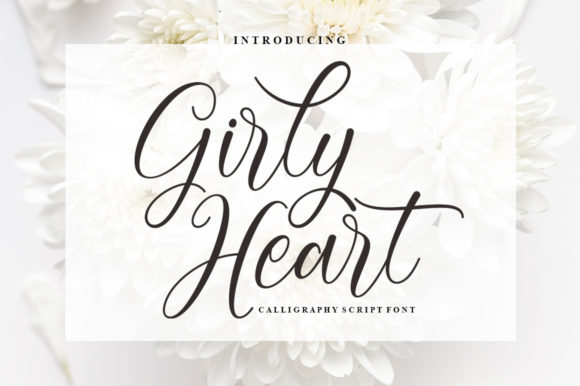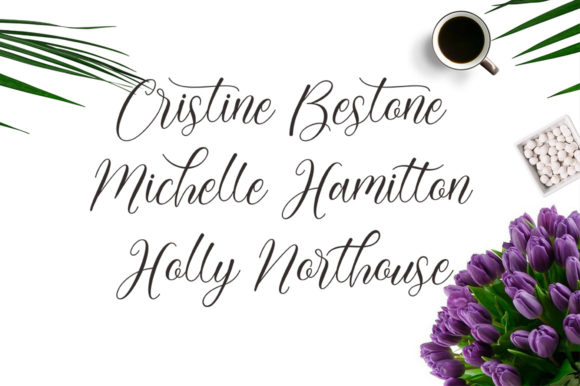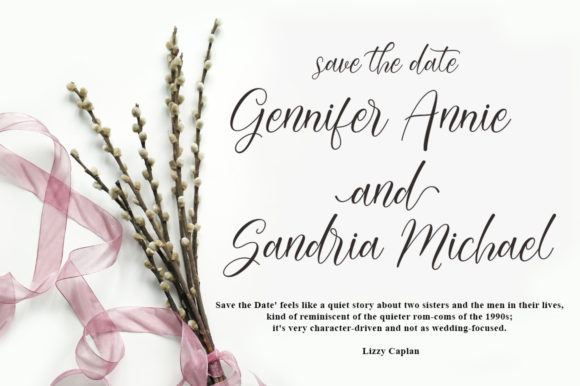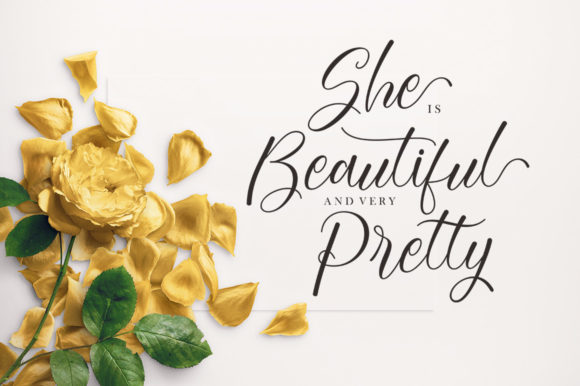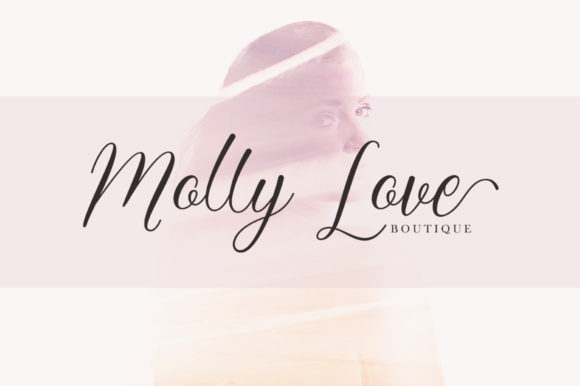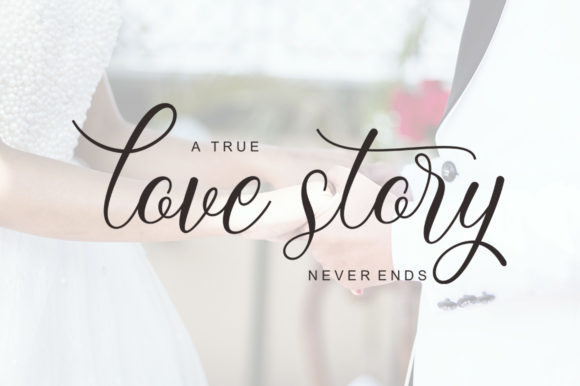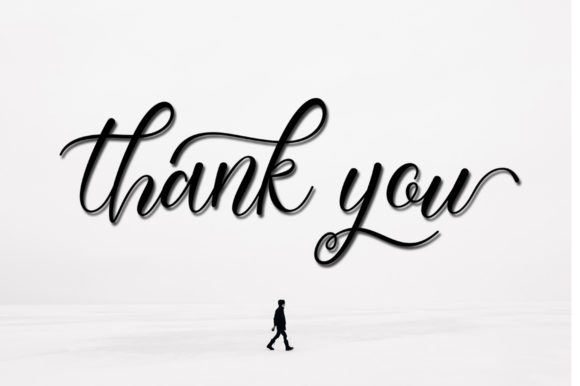
Girly Heart Font
About Girly Heart Font
The Girly Heart is a sweet hand-lettered font. It has a casual, yet dynamic look and a dancing baseline. It can be use to add an authentic look to your logos, branding, greeting cards, quotes, wedding stationary, and much more!